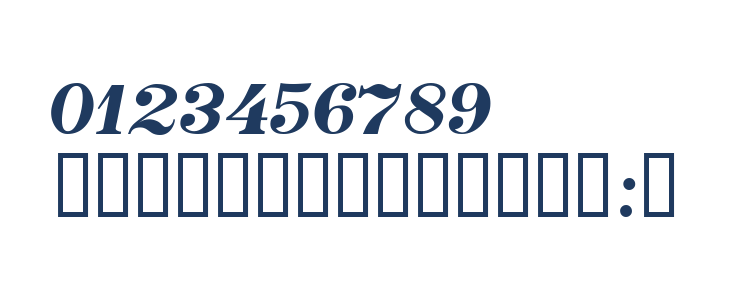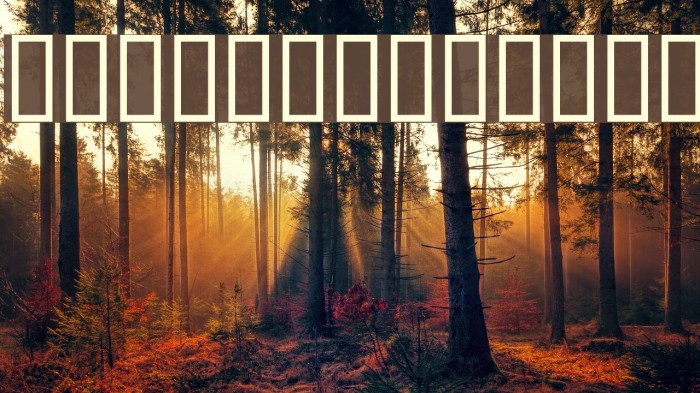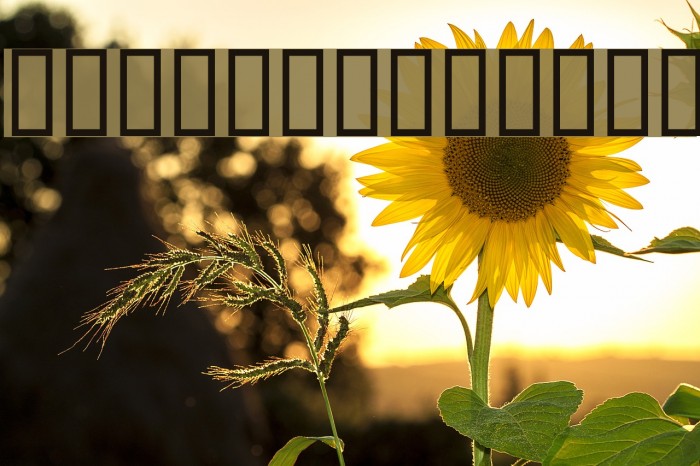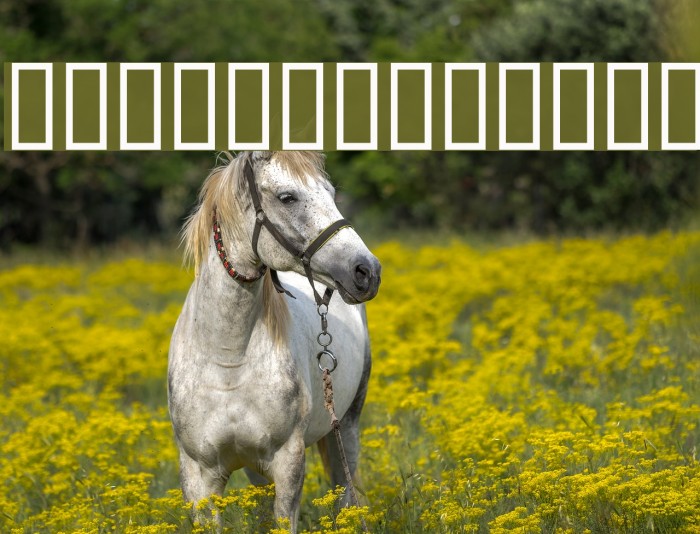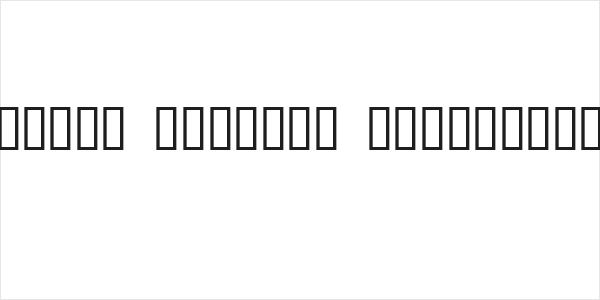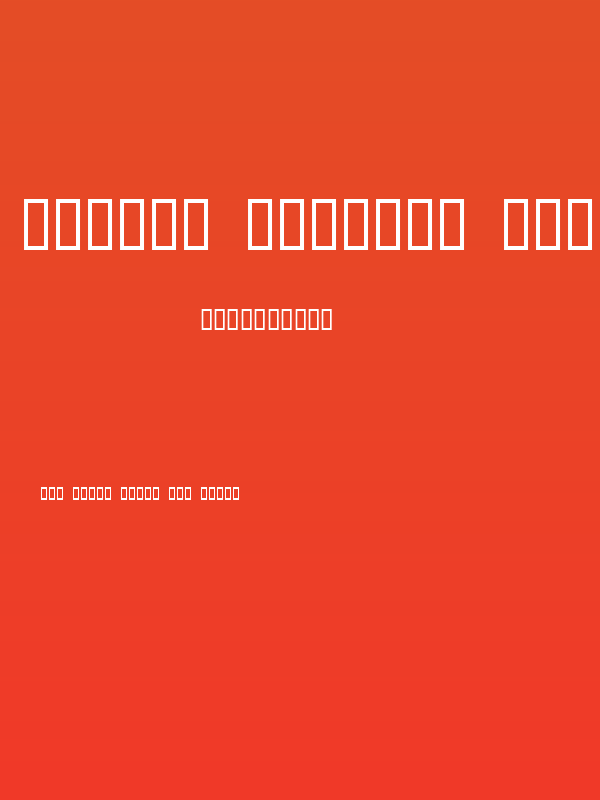
Tuplet Numbers [Petrucci] Font
Tuplet Numbers [Petrucci] Description
This font features a bold and elegant style, characterized by its high contrast between thick and thin strokes. The numbers are designed with a classic serif influence, giving them a sophisticated and timeless appearance. Each numeral is crafted with precision, showcasing a balance between traditional and modern elements. The curves are smooth and refined, adding a touch of elegance to the overall design. This font is ideal for projects that require a touch of class and readability, making it suitable for both digital and print media.
| Proposed Projects | Ideal for use in formal invitations, luxury branding, editorial design, and high-end product packaging. |